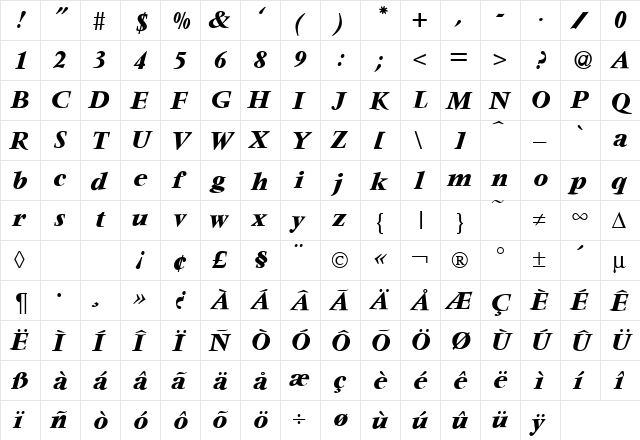
VendomeTwo BoldItalic
Design Context for VendomeTwo Typeface
VendomeTwo takes a measured approach to typography — its balanced proportions and neutral character make it a reliable workhorse for both digital and print work. The slanted form adds forward momentum and visual energy. Its bold stroke weight gives it real presence on the page.
Pro Tip: Try VendomeTwo for annotation and caption copy alongside an upright companion — the contrast in angle creates a dynamic but ordered typographic system.